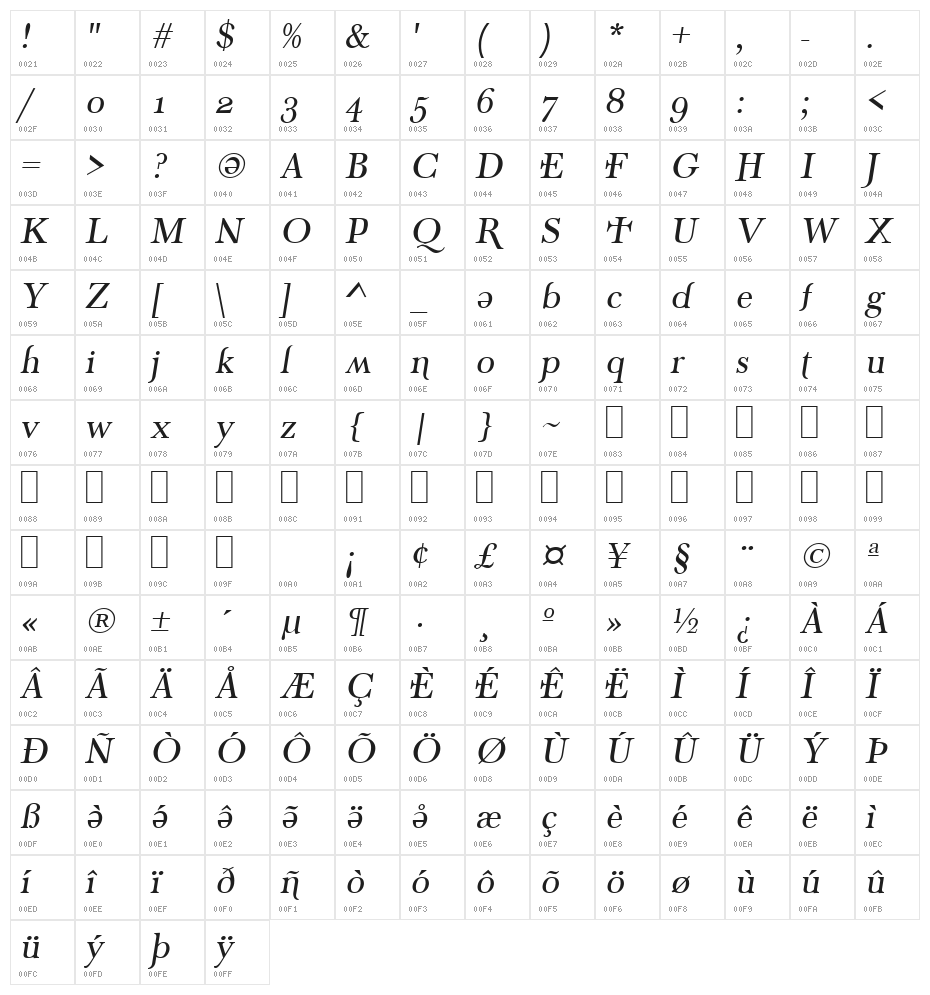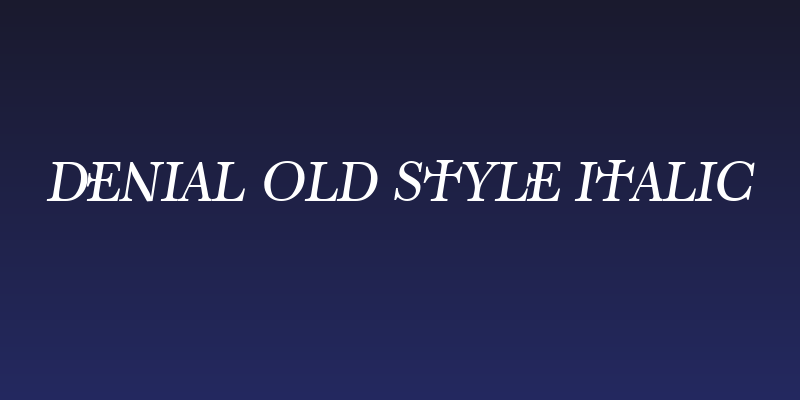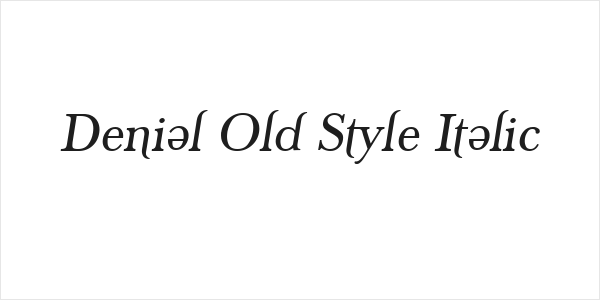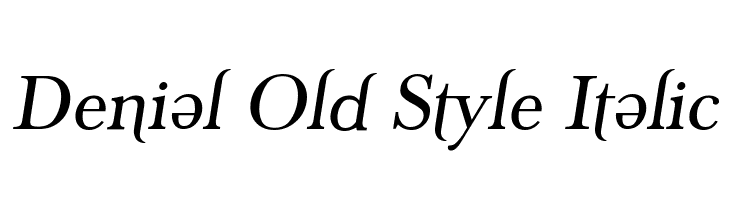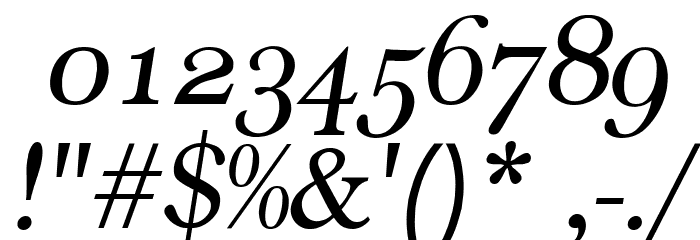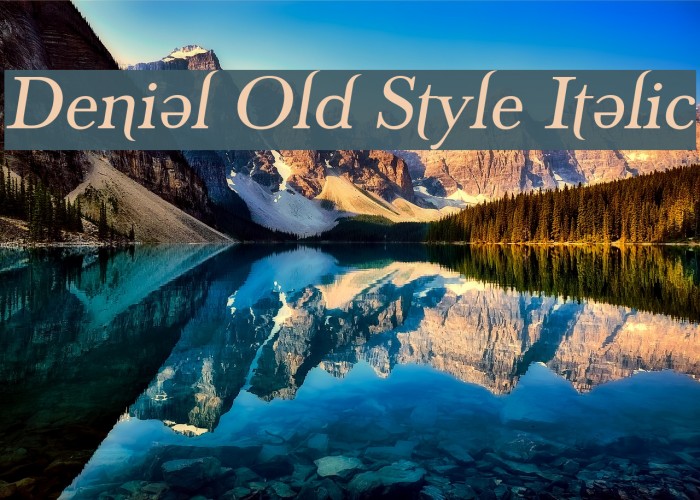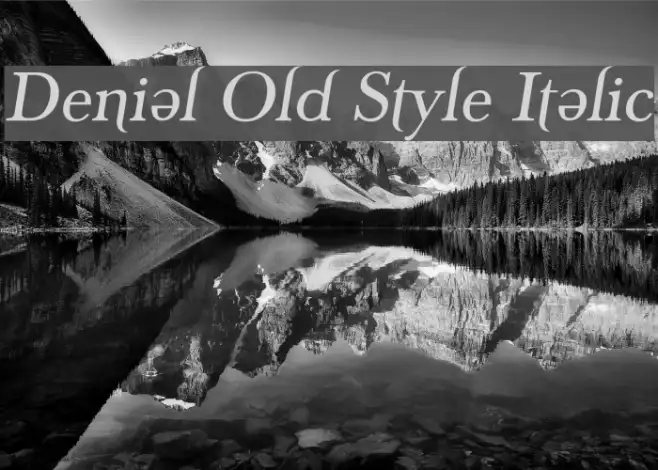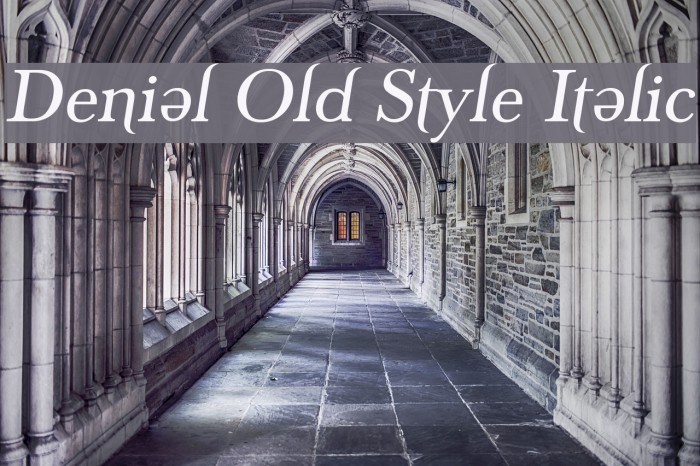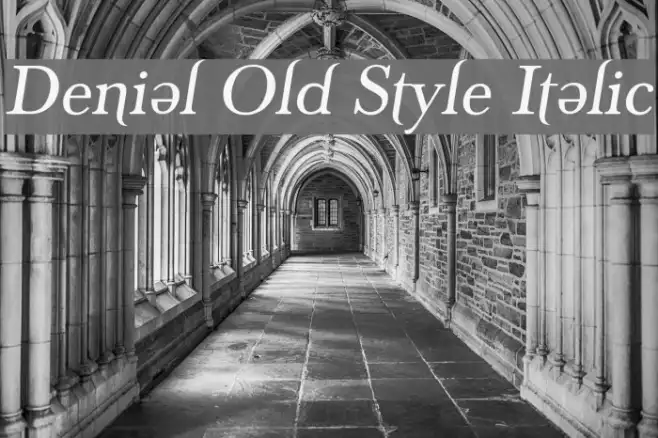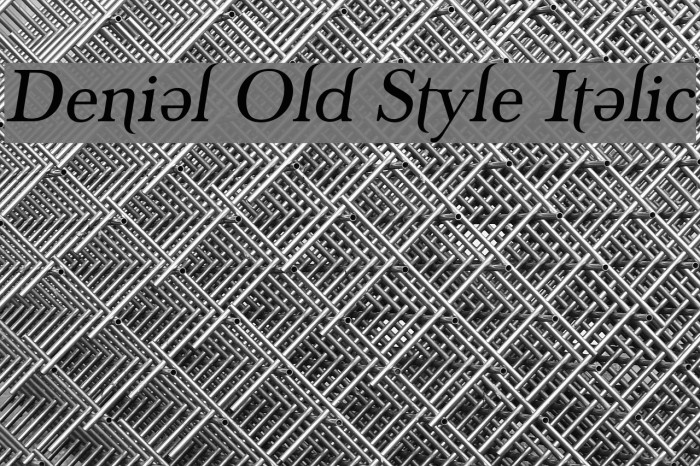
Denial Old Style Italic Font
Denial Old Style Italic Description
This font exhibits a classic and elegant style with a distinct italic slant, reminiscent of traditional serif typefaces. The characters are gracefully elongated, with smooth curves and sharp serifs that add a touch of sophistication. The uppercase letters are bold and commanding, while the lowercase letters maintain a refined and fluid appearance. The numerals are clear and well-proportioned, ensuring readability. Special characters are designed with the same attention to detail, making them seamlessly integrate with the rest of the typeface. This font's overall aesthetic is both timeless and versatile, suitable for a variety of applications.
| Overall Style | Classic |
| Use Case | Headlines, Body text, Logos |
| Proposed Projects | Ideal for projects requiring a touch of elegance, such as wedding invitations, formal event programs, or luxury brand logos. |